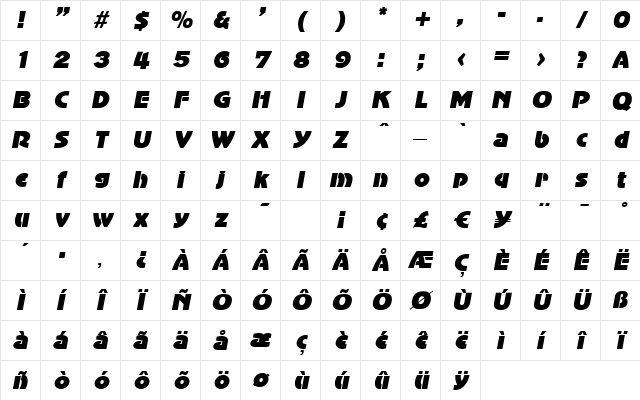
AdvertisersGothic Italic
AdvertisersGothic Family
Design Context for AdvertisersGothic
AdvertisersGothic takes a clean, functional approach - its unadorned letterforms prioritise legibility and work reliably across screen and print environments. The slanted form adds forward momentum and visual energy.
Font Pairing: Works well alongside a characterful serif or display font that can carry the expressive load while AdvertisersGothic handles the functional copy.
Pro Tip: Use AdvertisersGothic for UI labels, navigation, and short-form body copy where clean legibility is the priority.